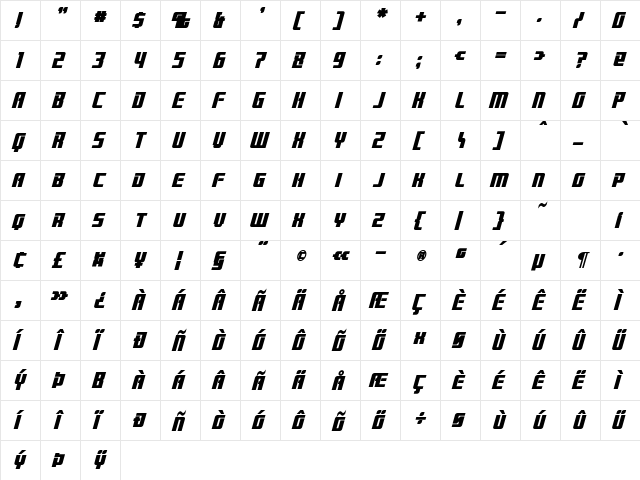
Brainstorm Bold Italic
Design Context for Brainstorm Typeface
Brainstorm is a composed and adaptable typeface that performs quietly and consistently across a wide range of design contexts. The dynamic lean of this cut emphasises speed and emphasis in any layout. The heavy weight commands attention and anchors typographic hierarchies.
Pro Tip: Try Brainstorm for annotation and caption copy alongside an upright companion — the contrast in angle creates a dynamic but ordered typographic system.